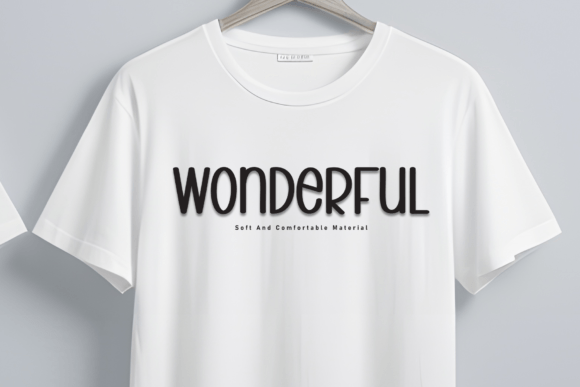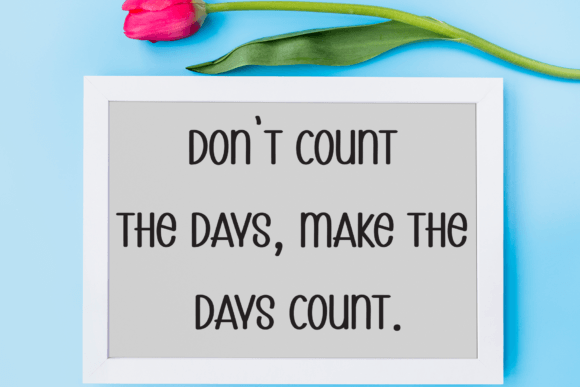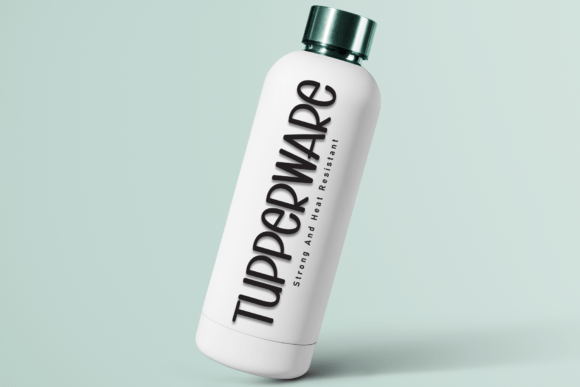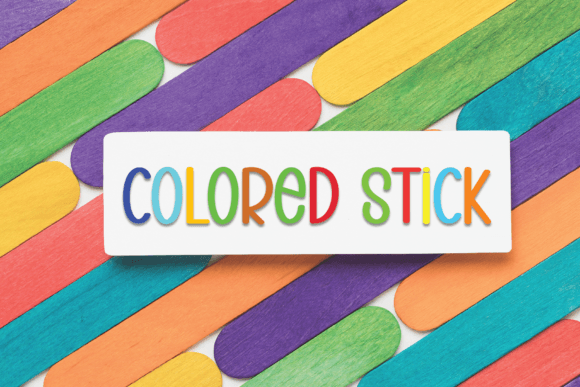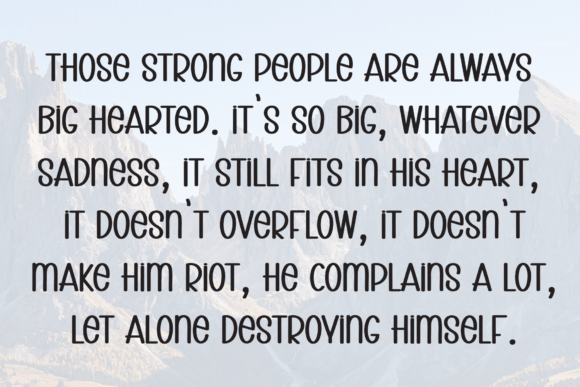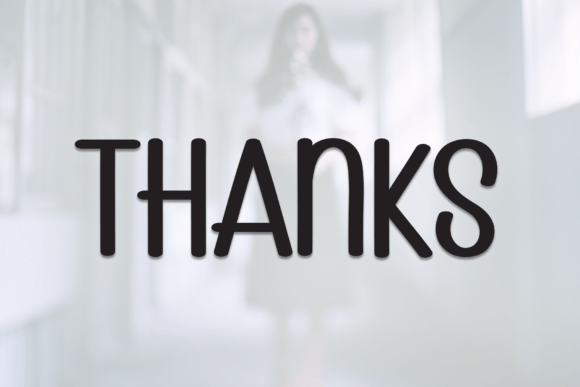
Unleash Your Creativity with Ghost School Font: A Timeless Handwritten Treasure
Are you a designer, crafter, or DIY enthusiast looking for a font that can add a touch of elegance and whimsy to your projects? Look no further than the Ghost School Font, a lovely and timeless handwritten font that’s perfect for creating eye-catching logos, branding, and quotes.
The Unique Charm of Ghost School Font
What sets Ghost School Font apart from other fonts is its unique and beautiful touch. Every letter has been carefully crafted to showcase a distinctive character that’s both elegant and playful. The font’s handwritten style gives it a warm and personal feel, making it perfect for designs that require a human touch.
With Ghost School Font, the design possibilities are endless. You can use it to create stunning logos, branding materials, and quotes that will leave a lasting impression on your audience. The font’s versatility makes it suitable for a wide range of projects, from:
- Logos and branding materials for businesses and personal projects
- Social media graphics and quotes
- DIY crafts and scrapbooking
- Wedding and event invitations
- Stationery and greeting cards
Why Choose Ghost School Font?
So, why should you choose Ghost School Font for your design projects? Here are just a few reasons:
- Unique and distinctive style: Ghost School Font has a one-of-a-kind look that will set your designs apart from the crowd.
- Elegant and whimsical: The font’s handwritten style adds a touch of elegance and whimsy to any design.
- Easy to read: Despite its unique style, Ghost School Font is easy to read and understand, making it perfect for body text and quotes.
- Versatile: The font can be used for a wide range of projects, from logos and branding to DIY crafts and scrapbooking.
Tips for Using Ghost School Font
To get the most out of Ghost School Font, here are a few tips:
- Experiment with different colors: The font looks great in a variety of colors, so don’t be afraid to experiment and find the perfect hue for your design.
- Mix and match with other fonts: Ghost School Font pairs well with other fonts, so try combining it with different styles to create a unique look.
- Use it for headlines and titles: The font’s elegant and whimsical style makes it perfect for headlines and titles.
In conclusion, Ghost School Font is a timeless handwritten treasure that’s perfect for designers, crafters, and DIY enthusiasts. Its unique and beautiful touch, elegant and whimsical style, and versatility make it an excellent choice for a wide range of projects. Whether you’re looking to create eye-catching logos, branding materials, or quotes, Ghost School Font is sure to unleash your creativity and bring your designs to life.